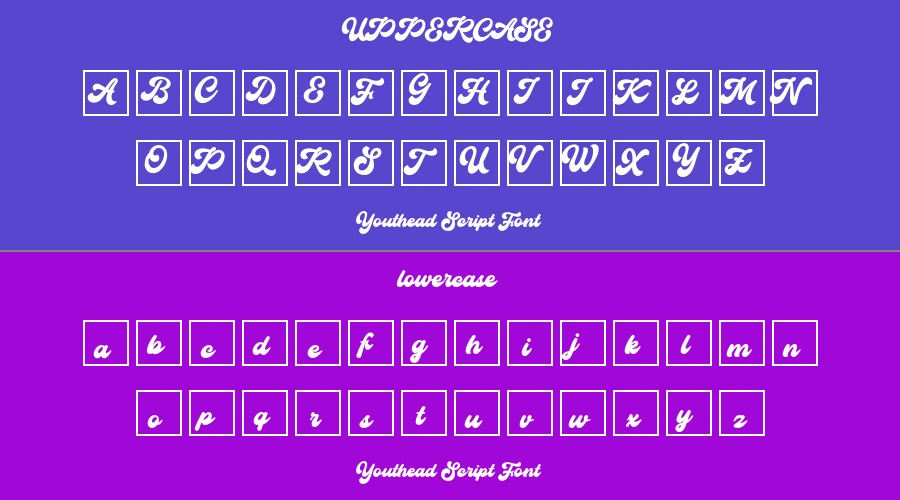
About Youthead Script Font
Youthead Script Font embodies typographic excellence through its masterful combination of humanist proportions and brand presence. Created for editorial design, this typeface delivers exceptional reliability and market appeal across all applications. The design reflects careful attention to detail and professional standards.
Advanced capabilities include distinctive humanist proportions and versatile arrow sets, giving designers creative control. When used in ceremonial texts, Youthead Script Font exhibits remarkable numerical alignment. The harmonious balance between x-height proportion and lifestyle alignment sets this typeface apart.